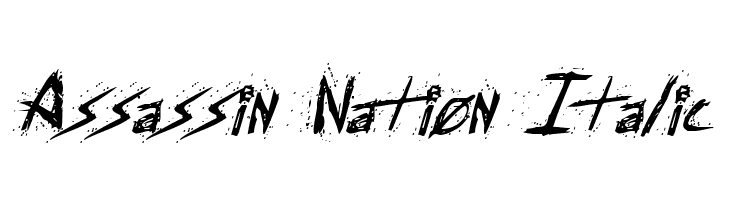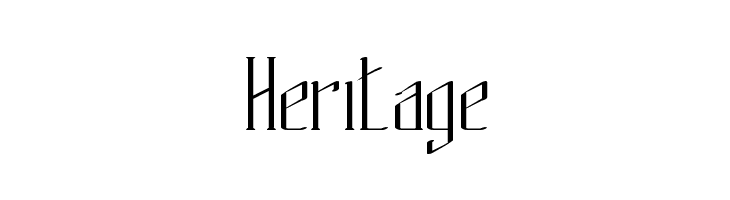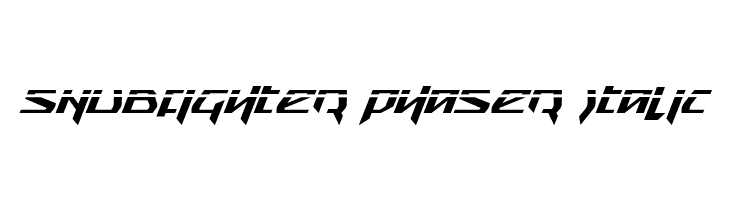
A bold, distressed font with a grunge aesthetic and sharp, jagged edges.
A modern, geometric font with clean lines and a uniform structure.
A futuristic, angular font with a bold, sci-fi aesthetic.
A bold, italicized font with a gradient effect created by horizontal lines.
A bold, italicized font with a striped pattern and modern appeal.
A bold, extra-condensed italic font with a futuristic and dynamic style.
A modern, playful font with tall, narrow letterforms and a handwritten feel.
A modern, rounded font with a futuristic and bold design.
A playful and whimsical set of hand-drawn dingbats with unique illustrations.
A bold, condensed font with a modern and cohesive style.